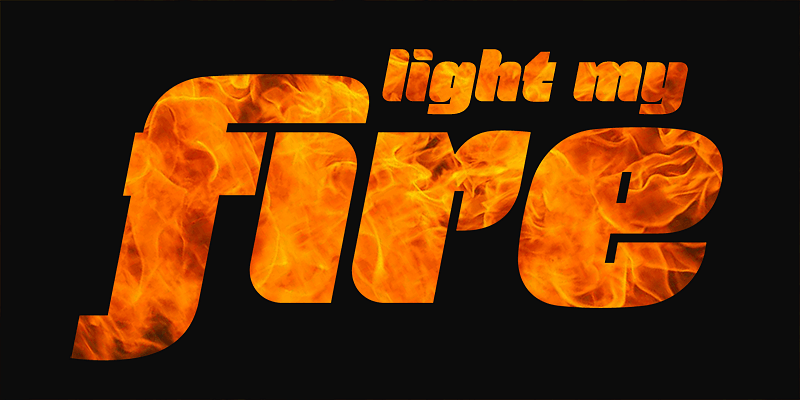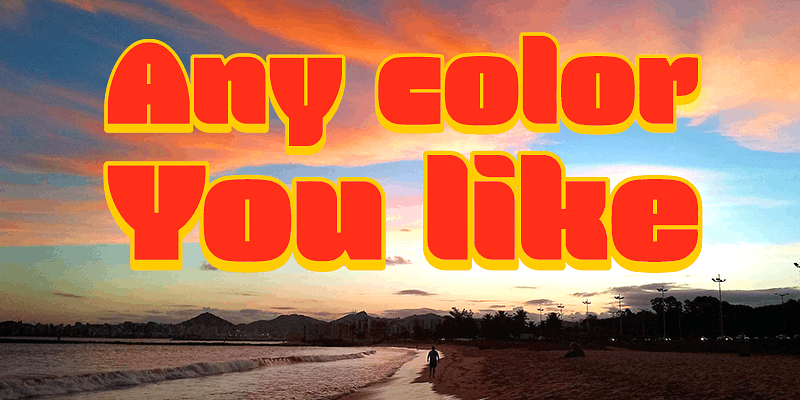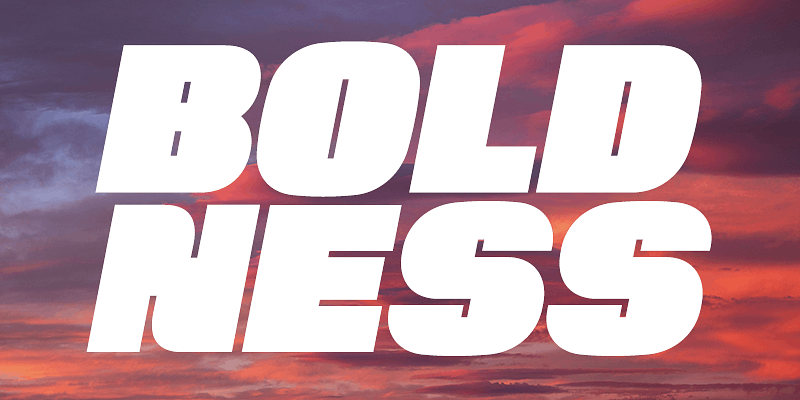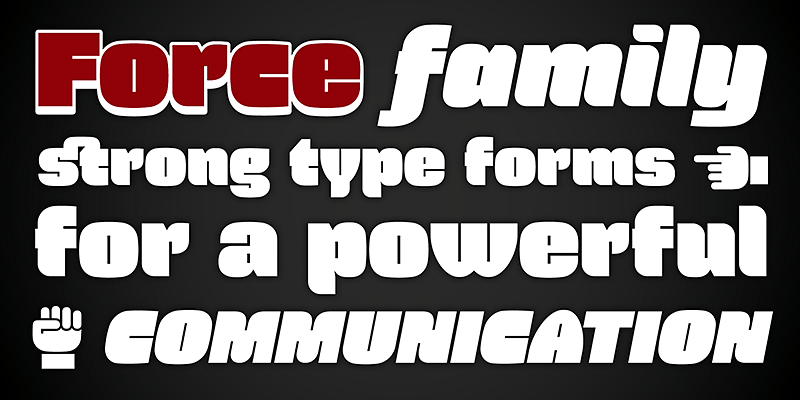
Force is a contemporary sans serif ultra-black family designed by Ricardo Esteves. There are 4 font styles: Force Regular, with an upright roman structure; Force Italic, with more cursive lowercase forms; Force Shadow, that can be used alone or as a second layer to Force Regular; and Force Dingbats, containing some pictograms. Each font file has some OpenType features: discretionary ligatures, fractions, subscript and superscript. The Force family is suitable for big-size high impact situations like posters, headlines, titles, magazines, packaging and many others you may creatively think of.